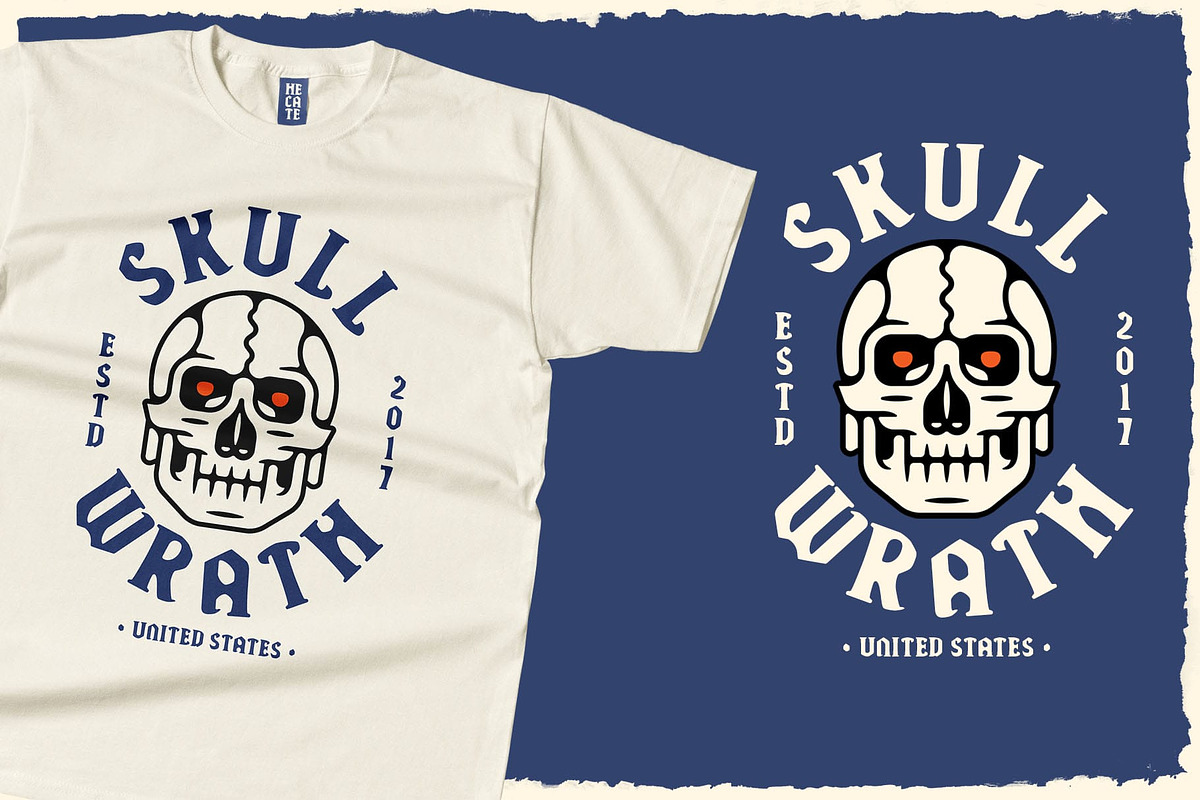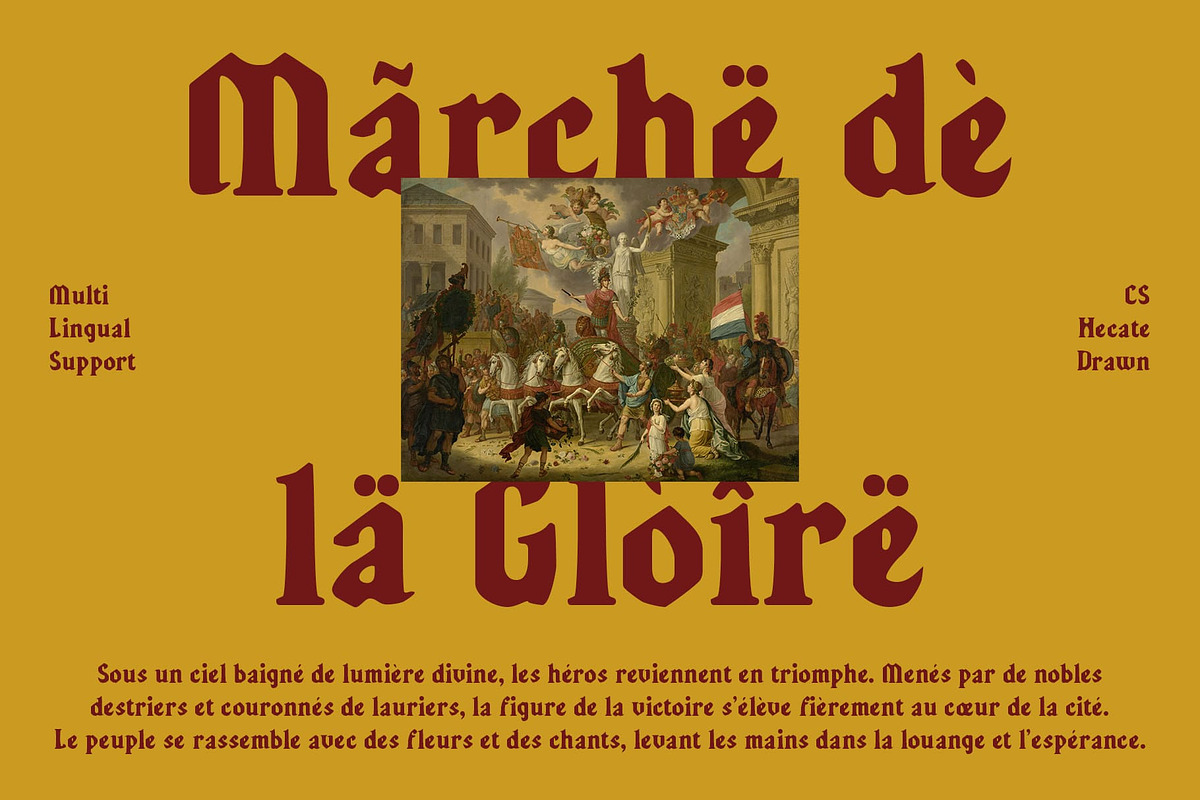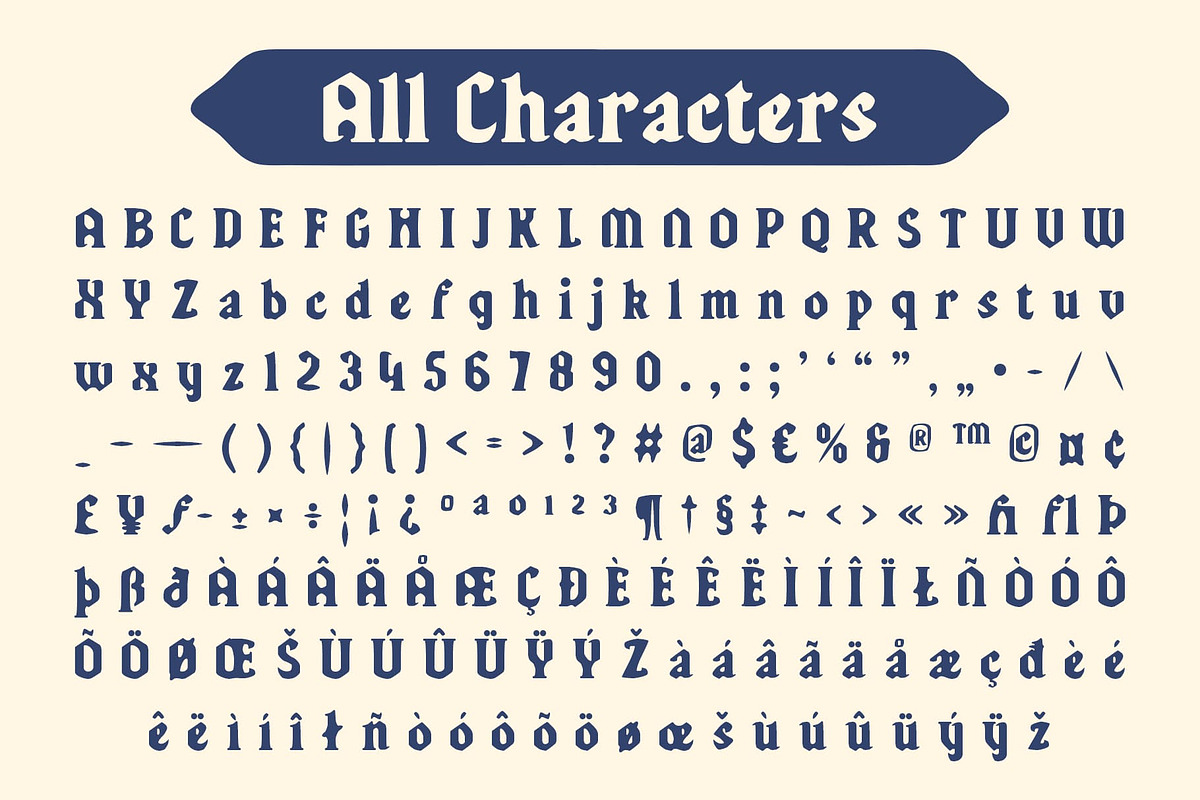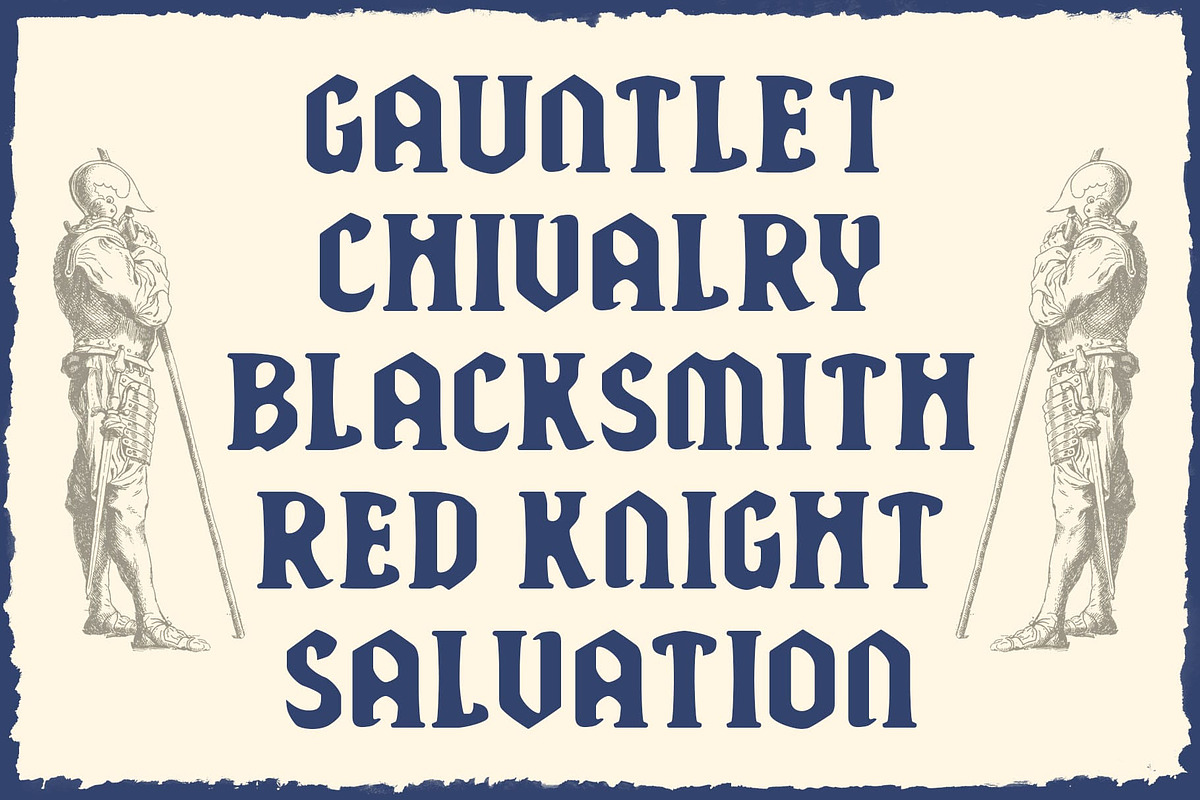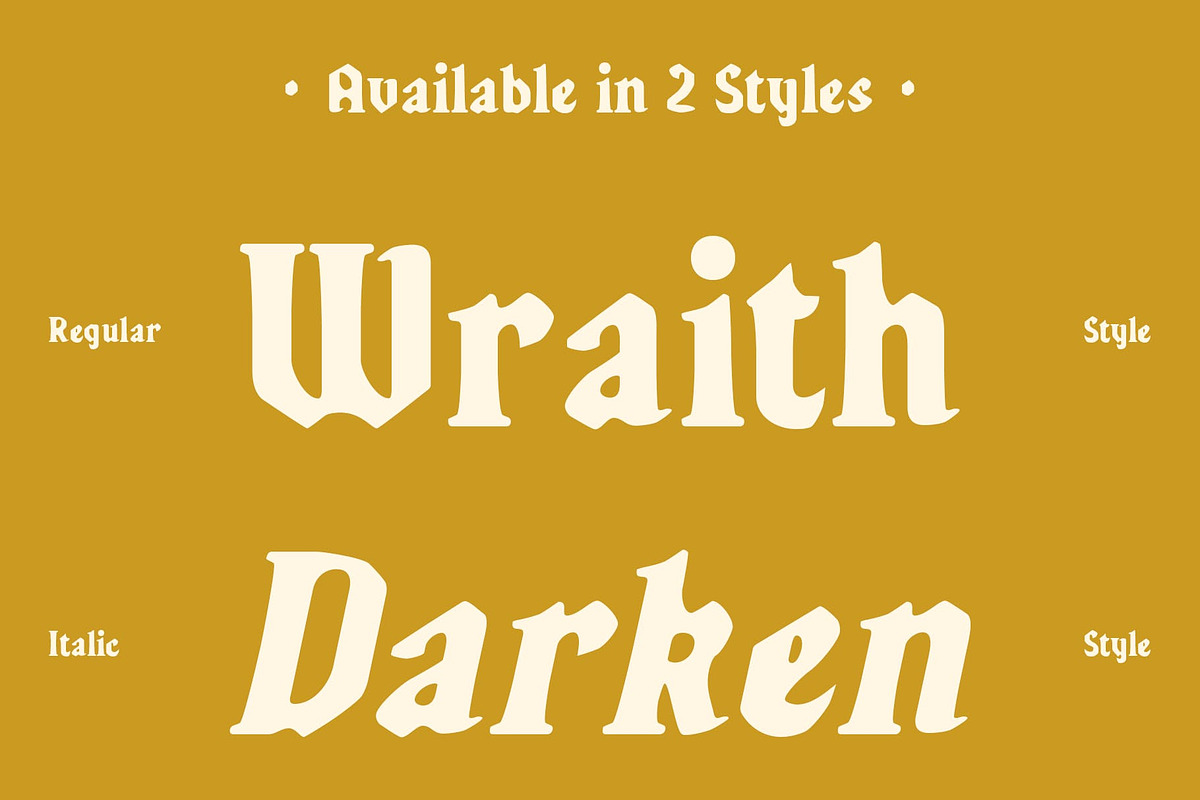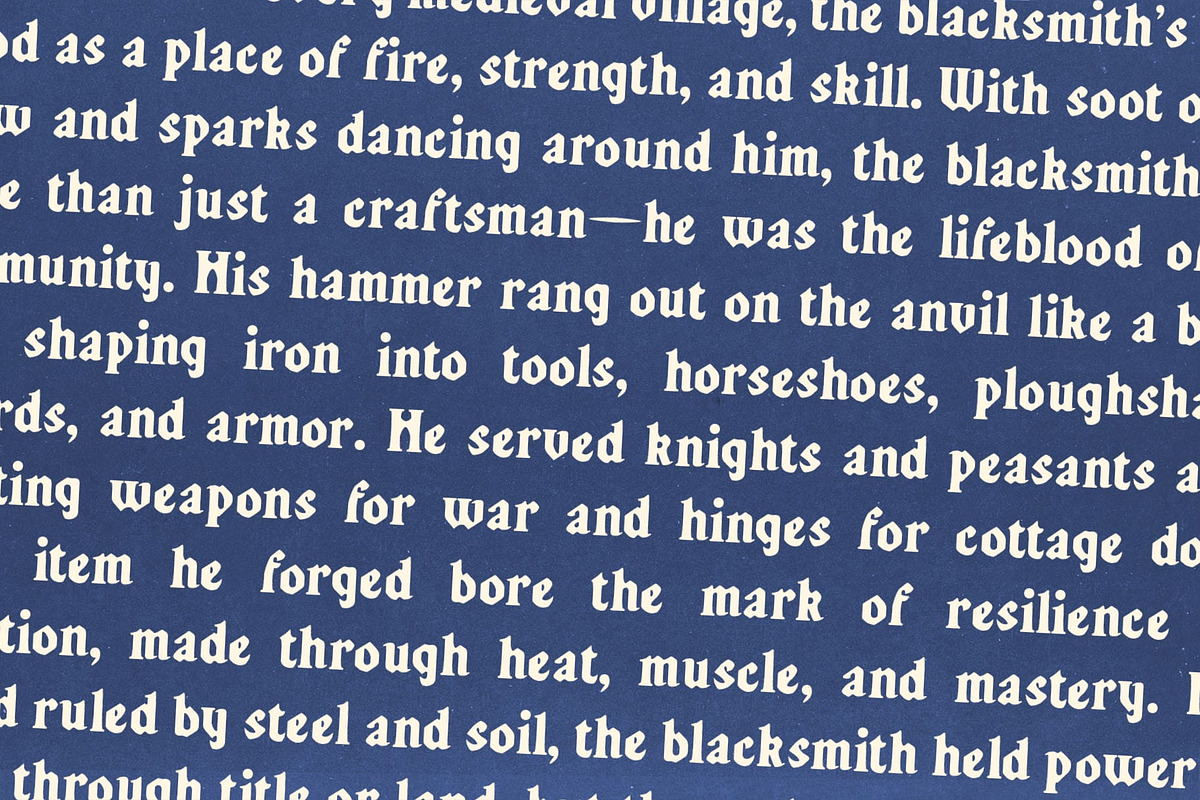
CS Hecate Drawn
CS Hecate Drawn – A Dramatic Serif Font with Gothic Elegance and Handcrafted Charm
Where History and Artistry Intertwine CS Hecate Drawn is a bold display serif font deeply rooted in Gothic and Renaissance traditions. With strong, ornamental letterforms and dramatic flair, it channels the grandeur of classical European design. Each character is shaped with authority—marked by sharp, sculptural serifs and thick, deliberate strokes—evoking the aesthetics of medieval manuscripts and early printed books.
A Font That Commands Presence Rich in historical character, this artistic font carries an unmistakable sense of drama and elegance. Its vertical tension and defined forms mirror architectural Gothic lines, while the refined proportions and stylistic details hint at Renaissance sophistication.
Drawn Effect with a Personal Touch What elevates this typeface beyond the traditional is its hand-drawn effect—a textured, sketched overlay that introduces a handcrafted quality. Whether appearing like a brushstroke or pen line, the drawn detail adds a tactile, organic element that contrasts beautifully with its structured form.
Perfect for Theatrical and Luxurious Designs This theatrical and mysterious font is ideal for projects that aim to appear grand, vintage, and visually commanding—such as theatrical posters, historical branding, high-end packaging, fantasy titles, or classical book covers. It fits effortlessly into designs that celebrate the past while maintaining creative individuality in the present.